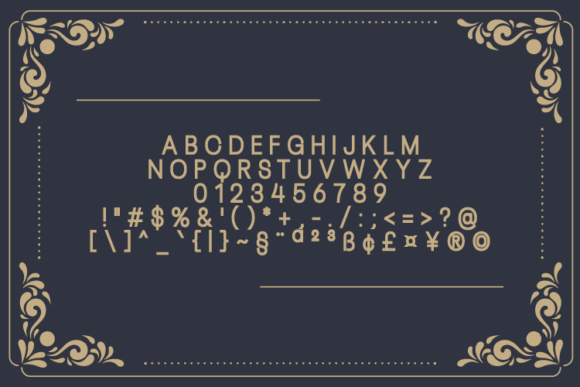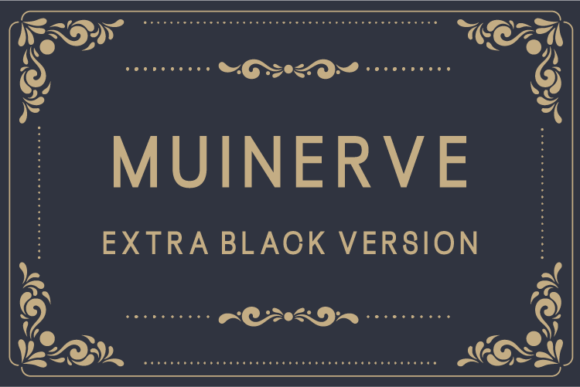
Introduction to Muinerve Extra Black Font
Muinerve Simplifies elegance into one truly outstanding sans serif font.
It maintains its classy calligraphic influences while feeling contemporary and fresh This versatility will appeal to a wide range of crafty ideas, from letterheads and titles, to stationery.
Why Choose Muinerve Extra Black Font?